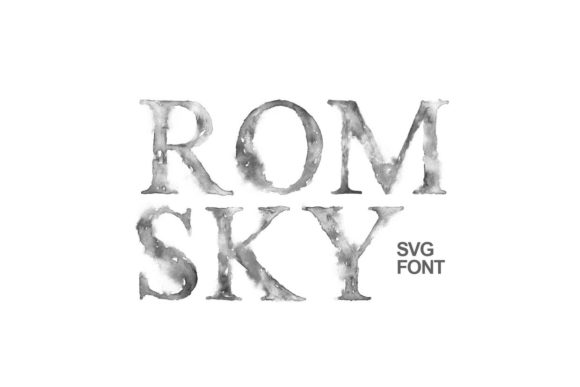
Welcome to the world of creativity and inspiration! Are you looking for a font that can make your artwork stand out from the crowd? Look no further than Romsky Watercolor Font, the perfect choice for artistic projects that need a unique touch.
Designed by the talented team at Freeject, Romsky Watercolor Font is a colorful font that's perfect for creating beautiful name art. With its authentic and natural feel, Romsky Watercolor Font is carefully crafted to give your designs an artistic edge. Its faded parts and different transparencies make it look impressive and natural, making it a great choice for various design projects.
So, whether you're a graphic designer, a blogger, or just someone who loves to create beautiful things, Romsky Watercolor Font is the perfect choice for you. With its eye-catching style and easy-to-use format, this font will help you take your projects to the next level.